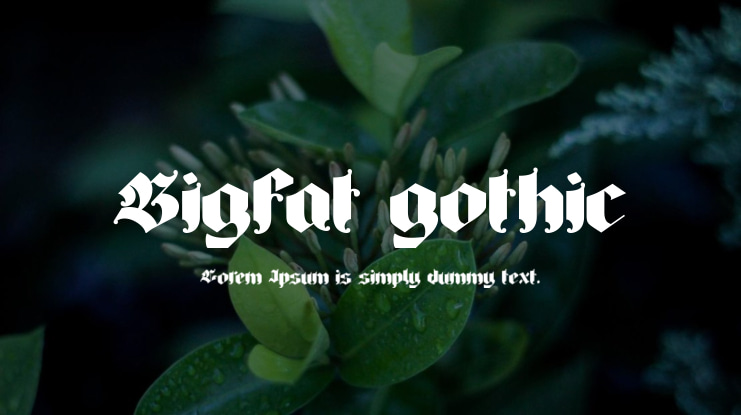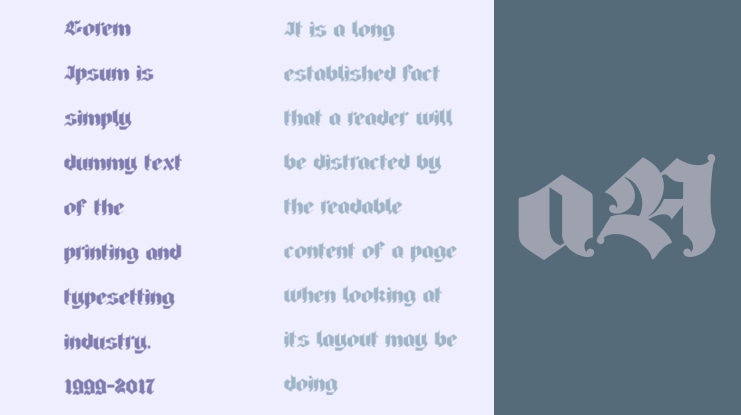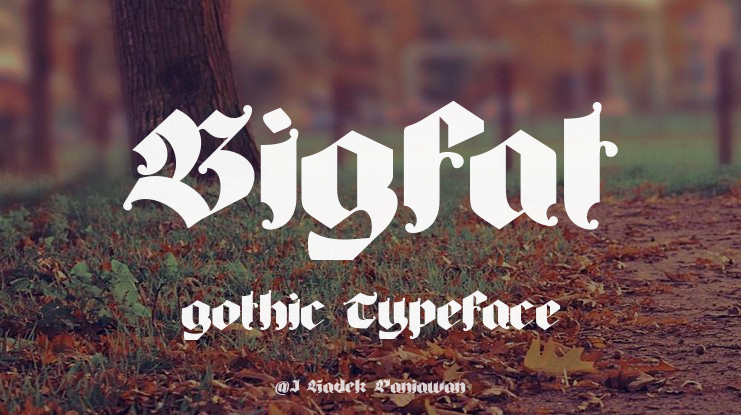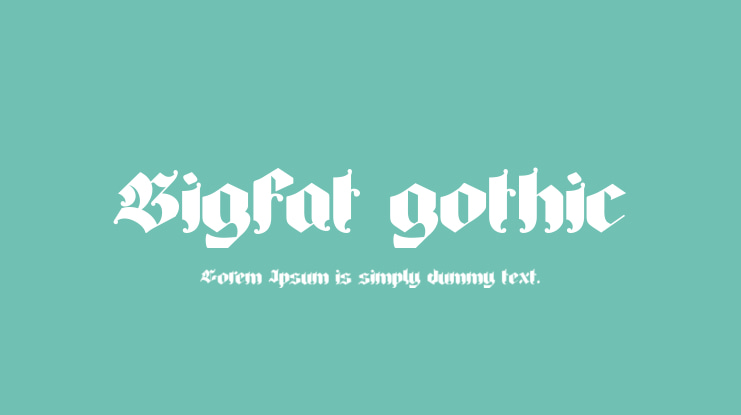
Bigfat gothic Font
I Kadek Paniawan
Presenting "Big Fat Gothic" – a bold and impactful font inspired by Blackletter themes, designed to captivate attention and make a strong statement in your projects. This font is ideal for text that needs to grab the viewer's eye and demand recognition.